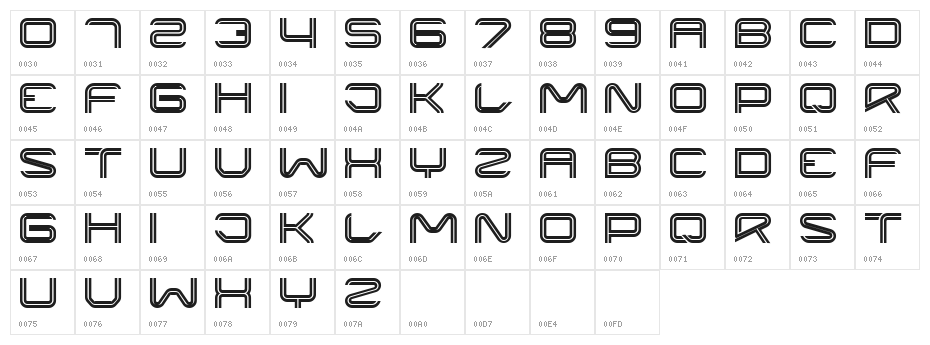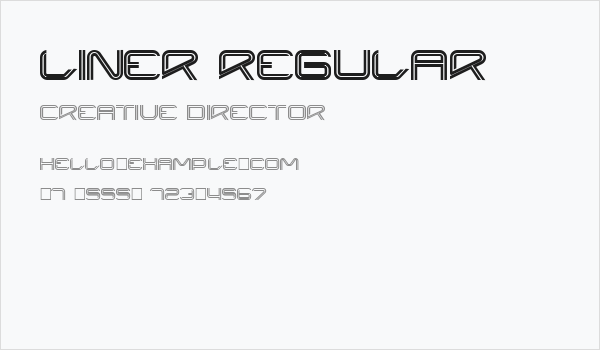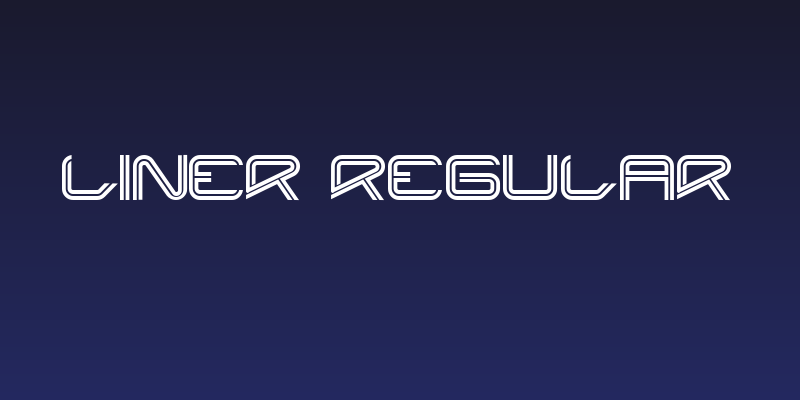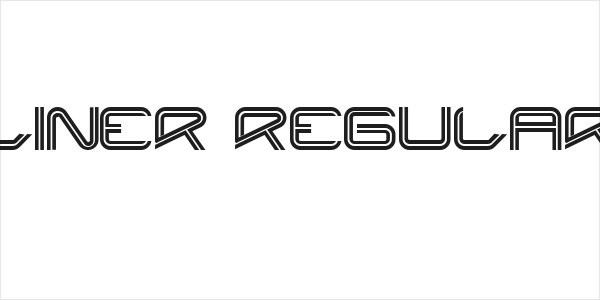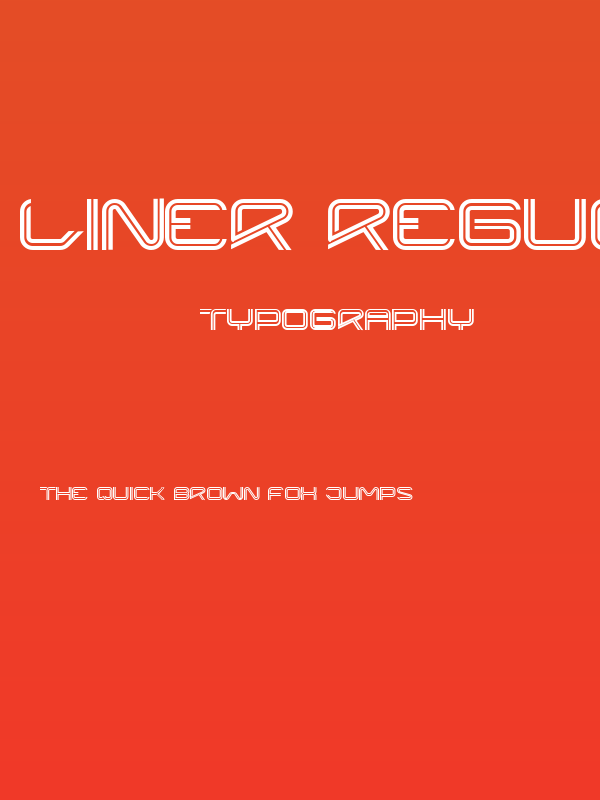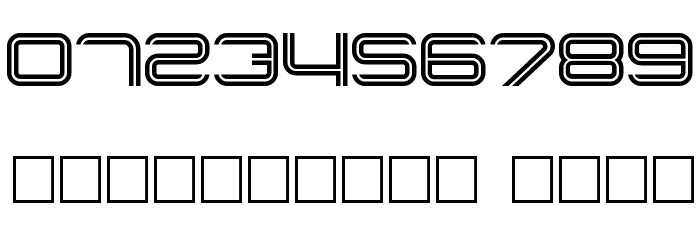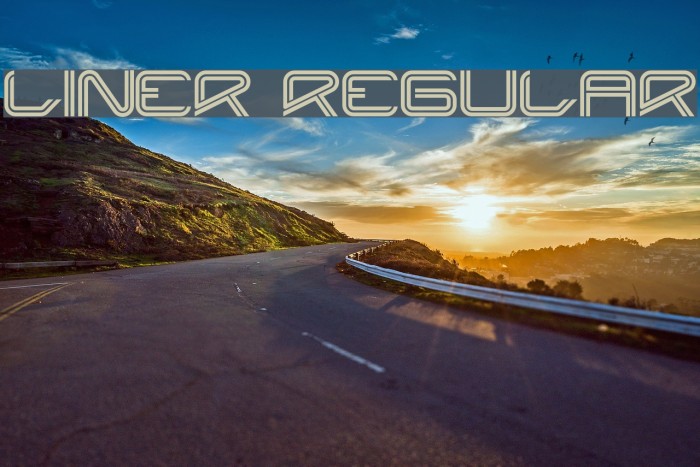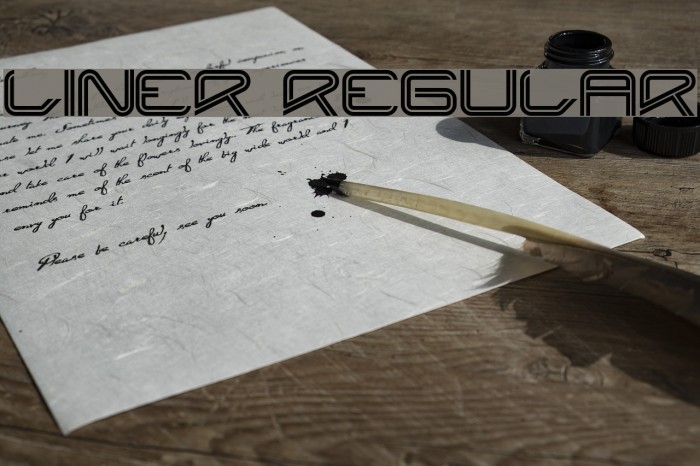
Liner Regular Font
Liner Regular Description
This font features a futuristic and geometric design with a double-line structure that creates a sense of depth and dimension. The characters are constructed with clean, straight lines and sharp angles, giving it a modern and technical appearance. The uppercase and lowercase letters maintain a consistent style, with the uppercase being slightly more elongated. The numerals and special characters follow the same design principles, ensuring uniformity across the font. Its unique style makes it stand out, suitable for projects that require a bold and innovative look.
| Proposed Projects | Ideal for technology branding, sci-fi posters, video game titles, and modern advertising. |